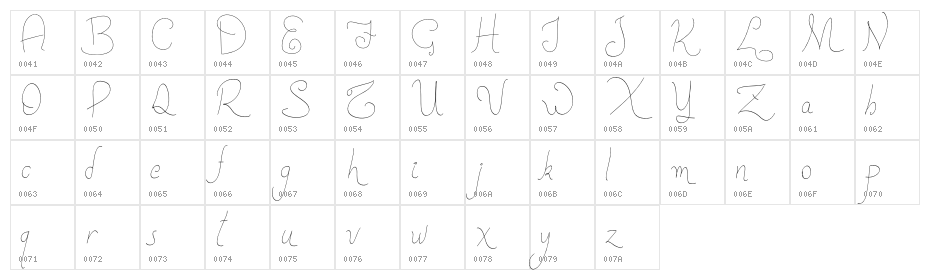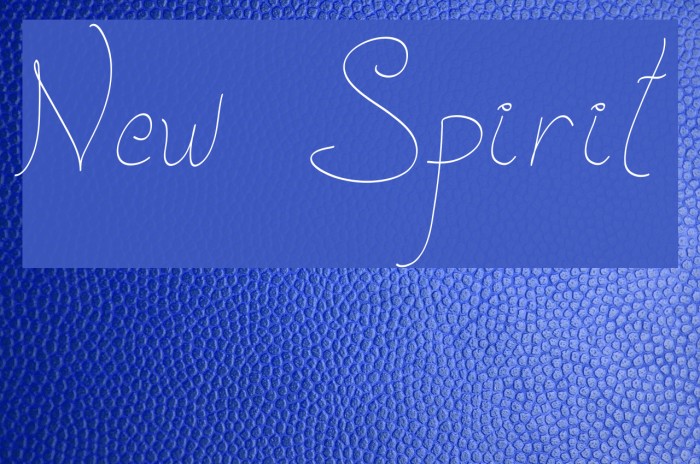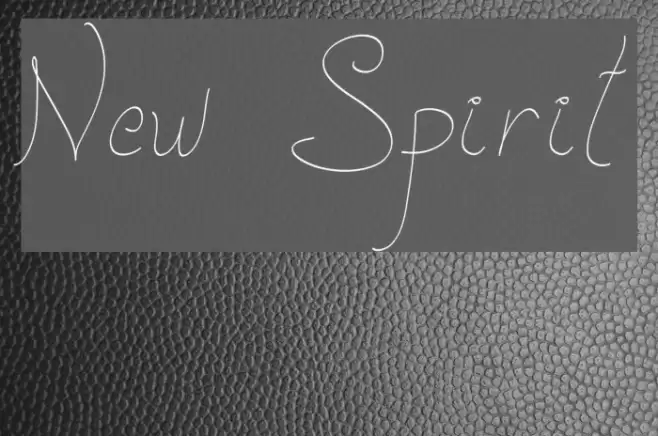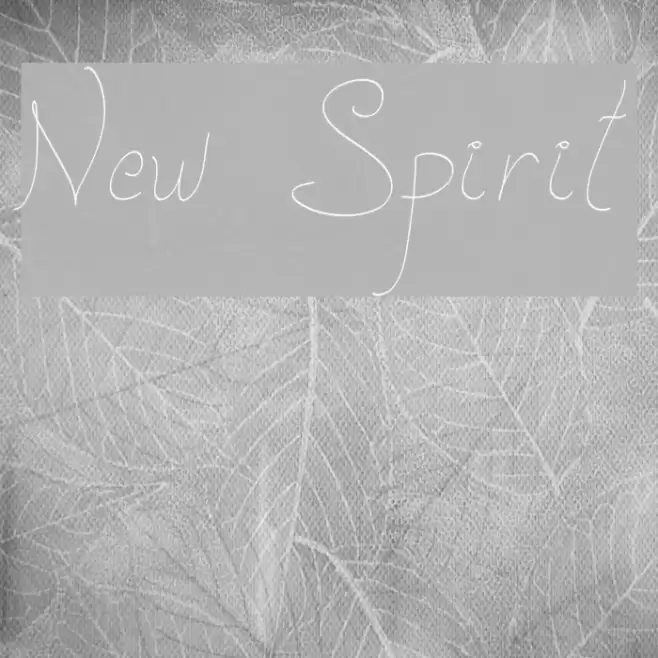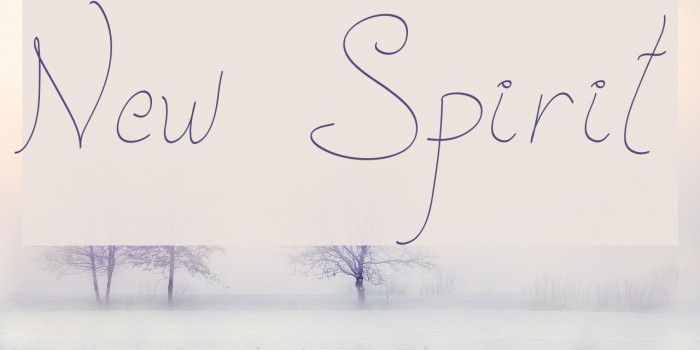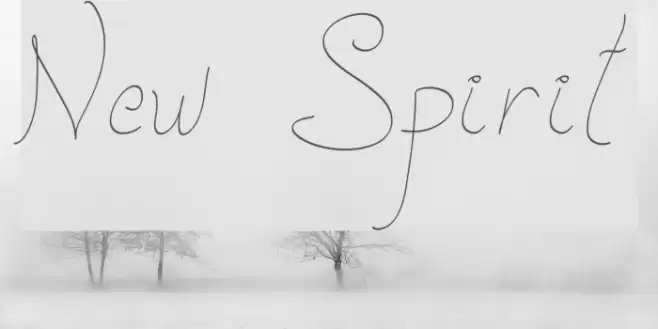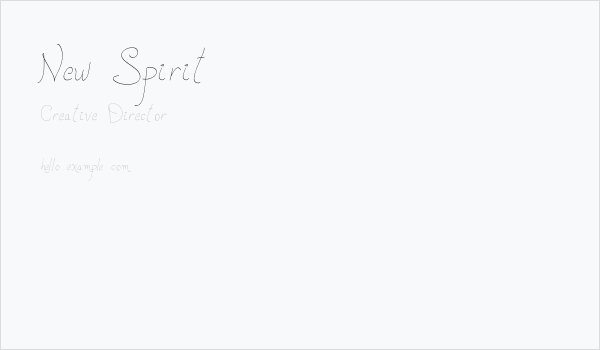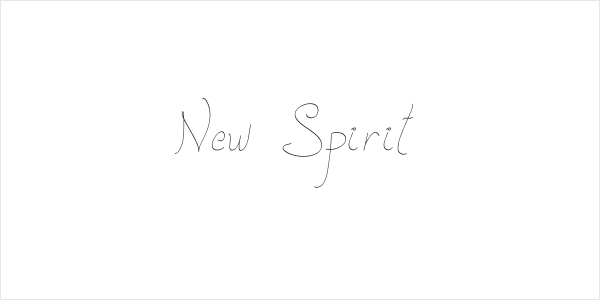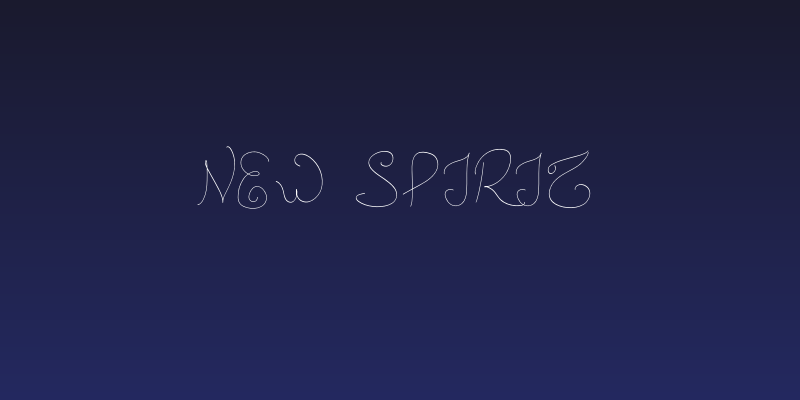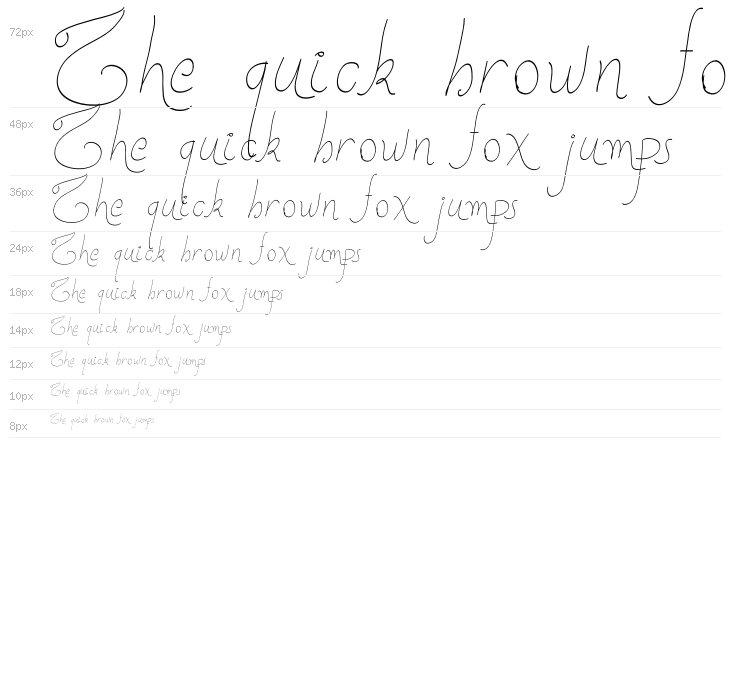
New Spirit Font
New Spirit Description
This font features a whimsical and artistic design, characterized by its flowing, cursive-like strokes that give it a hand-drawn appearance. The uppercase letters exhibit a playful elegance with loops and curves, while the lowercase letters maintain a consistent fluidity, enhancing its artistic flair. The overall design is light and airy, with a delicate balance between form and space, making it suitable for creative and expressive projects. Its unique style is both modern and reminiscent of classic calligraphy, offering a versatile option for various design needs.